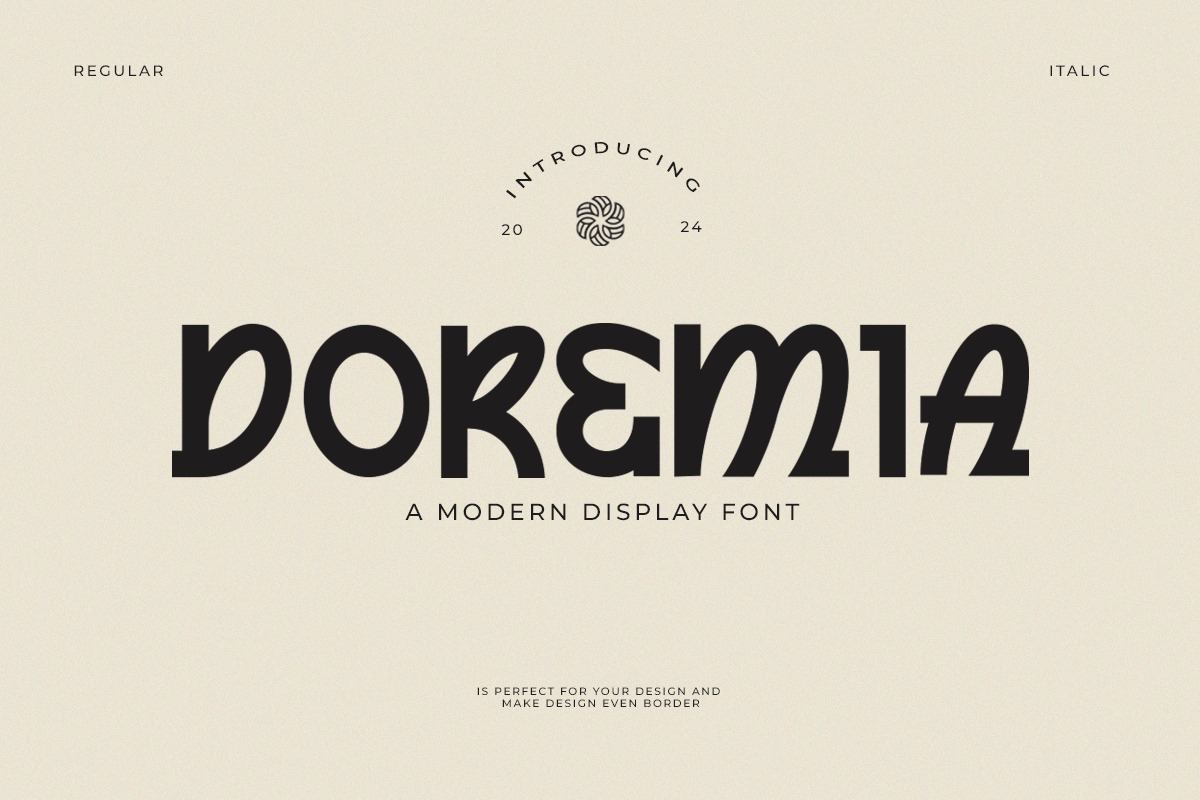
Doremia - Modern Typeface Free Download
Doremia Modern Typeface Free Download
Doremia Modern Typeface Free Download is a modern display font with an experimental style that looks modern, fun, and unique. It appears to be created with strong gestures, featuring a somewhat constructive design with cursive elements. This font is suitable for various applications, including logos, headlines, book covers, magazines, and more. You can download Doremia Modern Typeface Free Download for personal use to explore its features. For commercial applications, please ensure you purchase the appropriate license to comply with usage rights